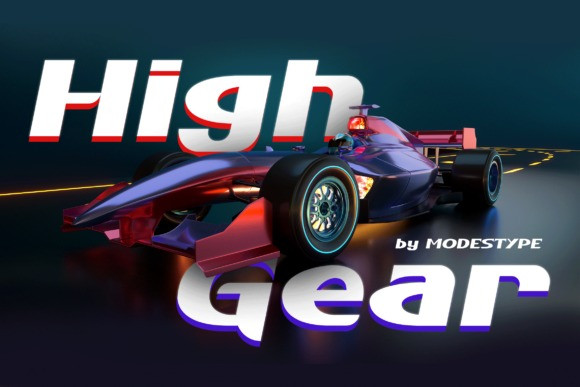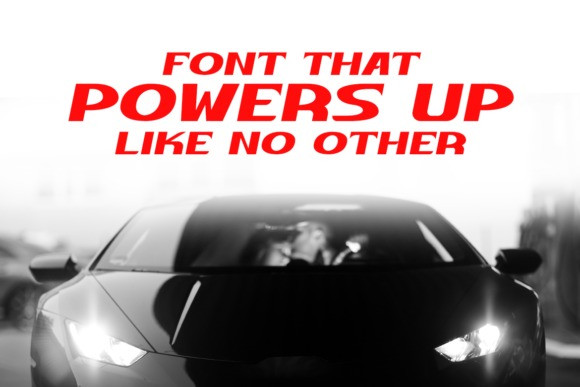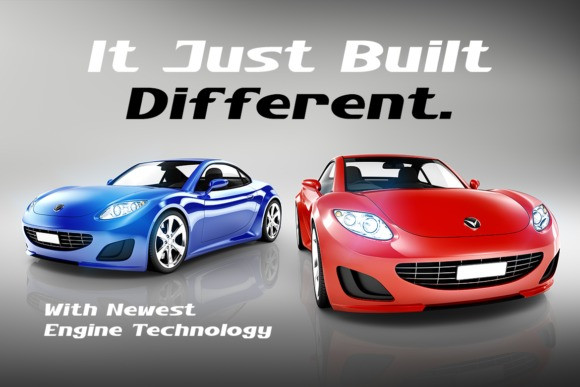
High Gear Font
High Gear is a cool and futuristic display font. It suits perfectly online games, teens event posters, school supplies, movie title, youtube covers, youtube thumbnails, social media page covers and various other design ideas.